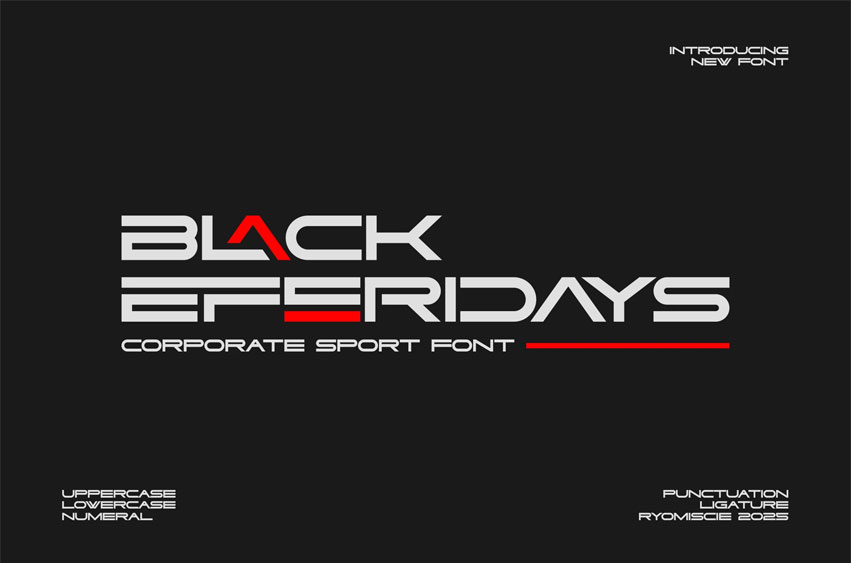
Black Eferidays Font
Black Eferidays Font Modern Font is a bold and authentic display font.
The font is suitable for any branding project, like logos, esport, and many more. outstanding in a wide range of contexts.
• Alternate
• Discretionary